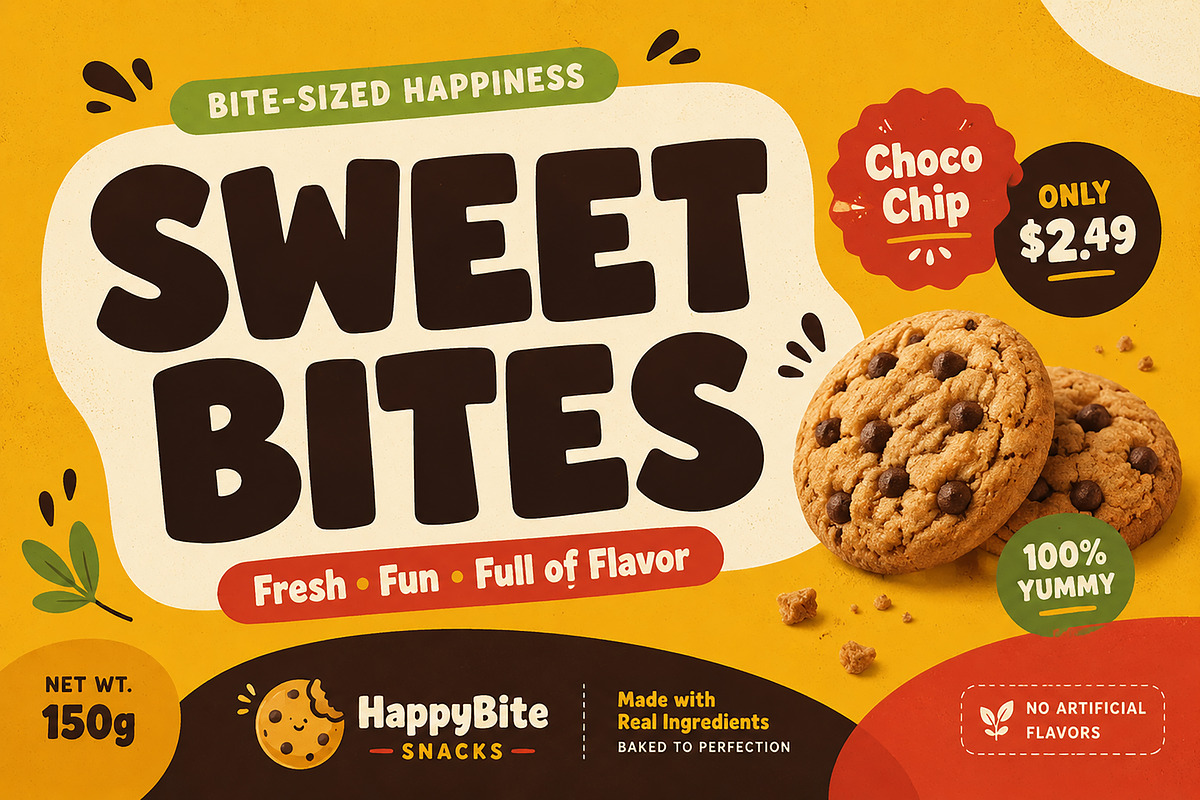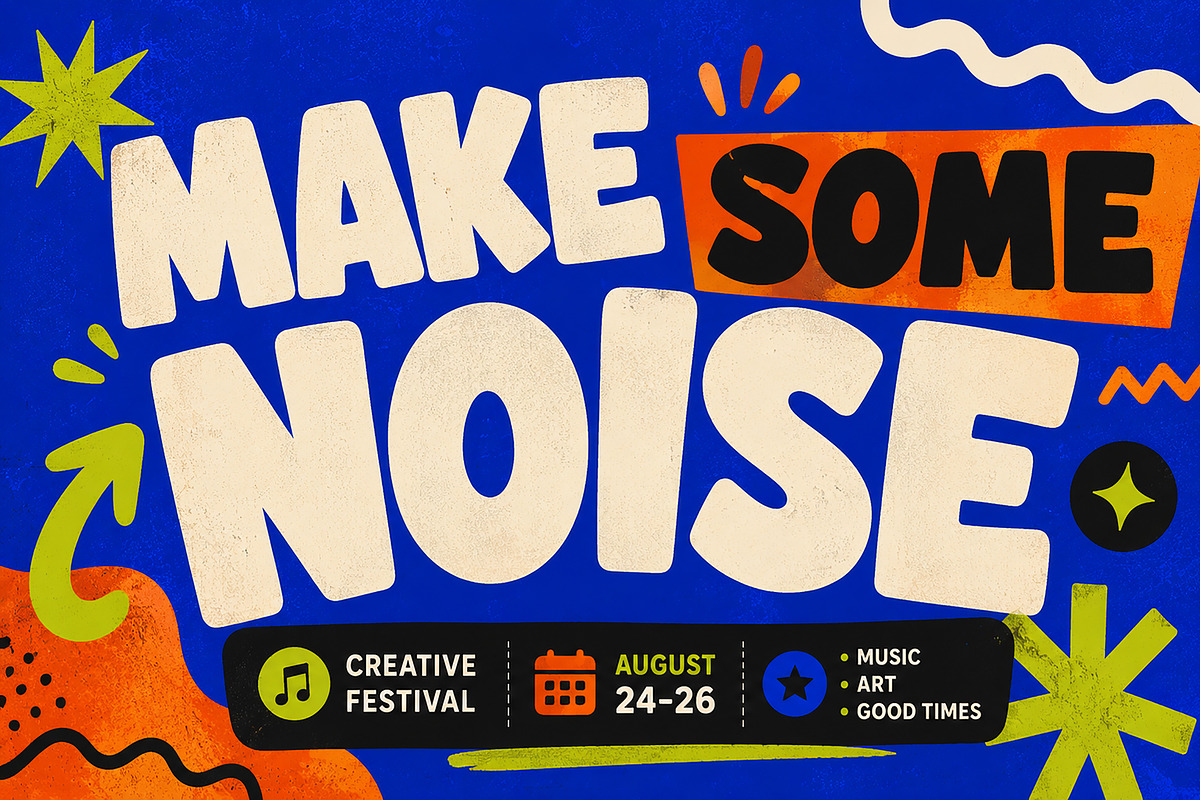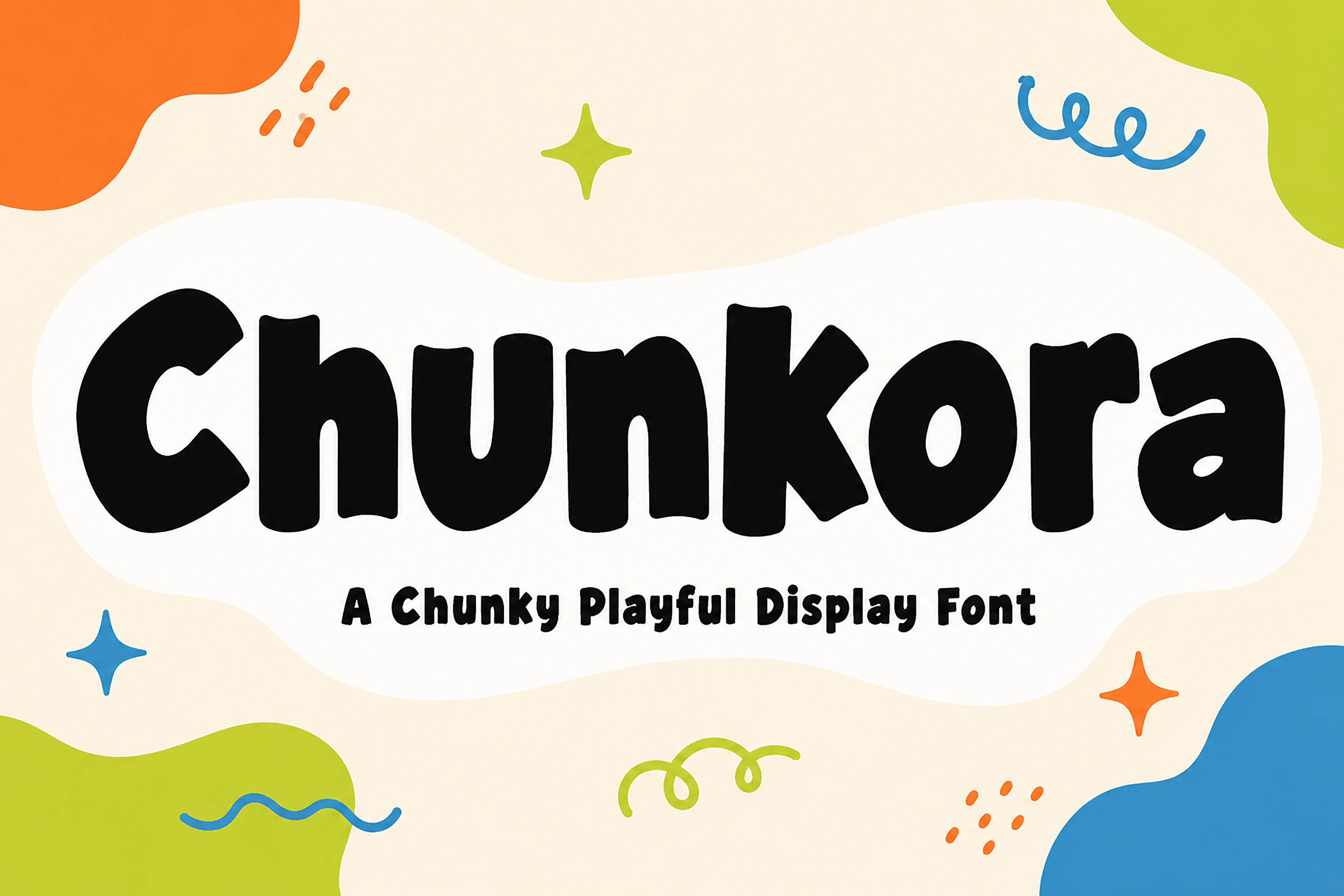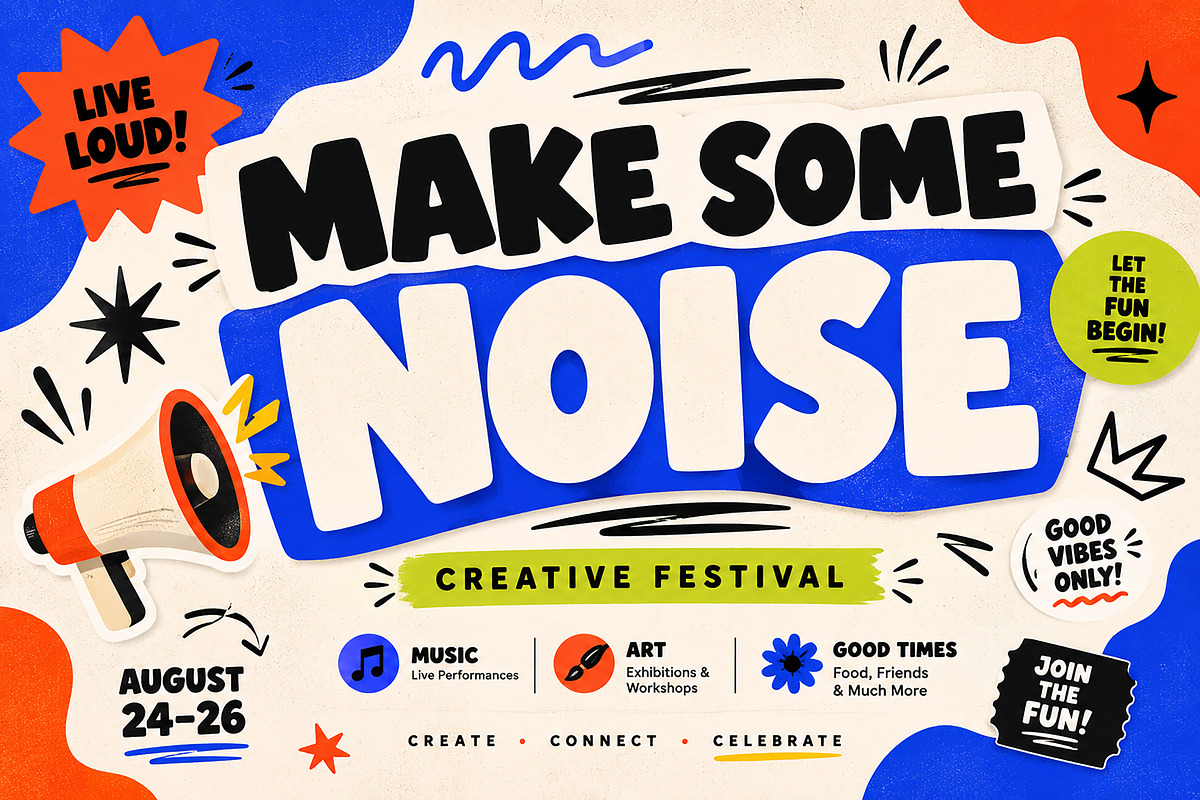
Chunkora – Chunky Display Font
Chunkora – A Chunky Playful Display Font
Chunkora is a bold, chunky, and playful display font designed to make every headline stand out. With its soft rounded edges, handcrafted letterforms, and fun personality, Chunkora is perfect for projects that need a cheerful, friendly, and eye-catching look.
Whether you're creating snack packaging, kids' products, branding, posters, social media graphics, or merchandise, Chunkora brings warmth, creativity, and bold visual impact to your designs. Its unique handcrafted style makes every word feel energetic, approachable, and memorable.
Perfect for both digital and print projects, Chunkora is designed to help your typography become the center of attention while maintaining excellent readability.
Food & Snack Packaging
Bakery & Café Branding
Children's Products
Toy Packaging
Posters
YouTube Thumbnails
Greeting Cards
Stickers
T-Shirt Designs
Tote Bags
Event Promotions
Advertising
Creative Branding
Headlines
Display Typography
Chunkora is the perfect choice for designers who want bold typography with a fun and modern handcrafted feel.